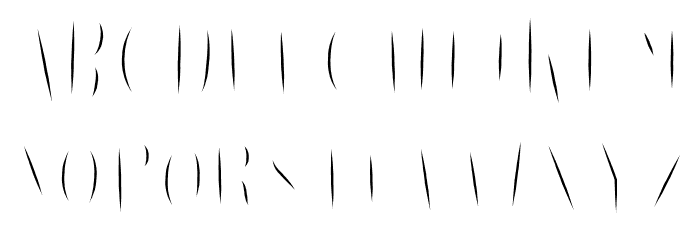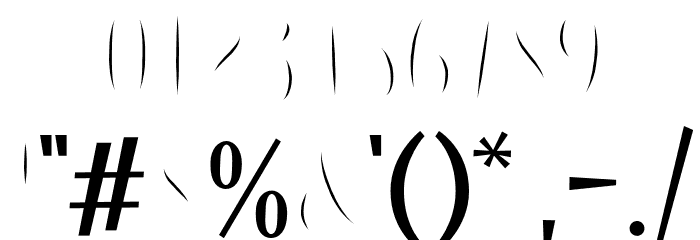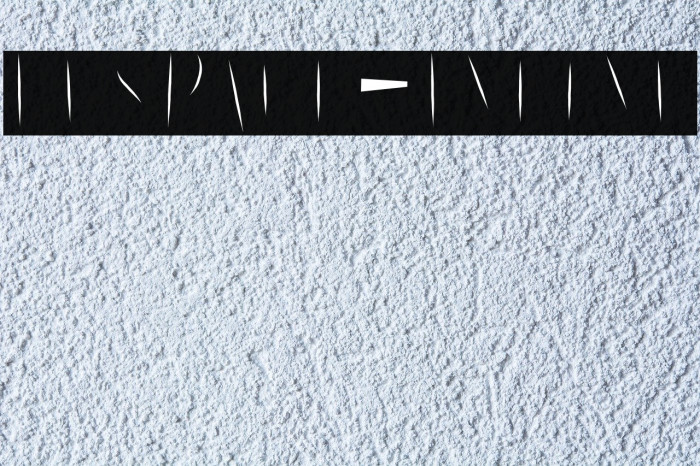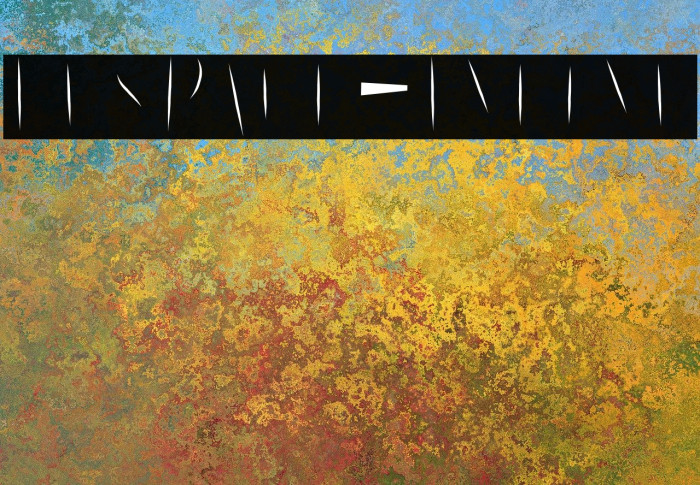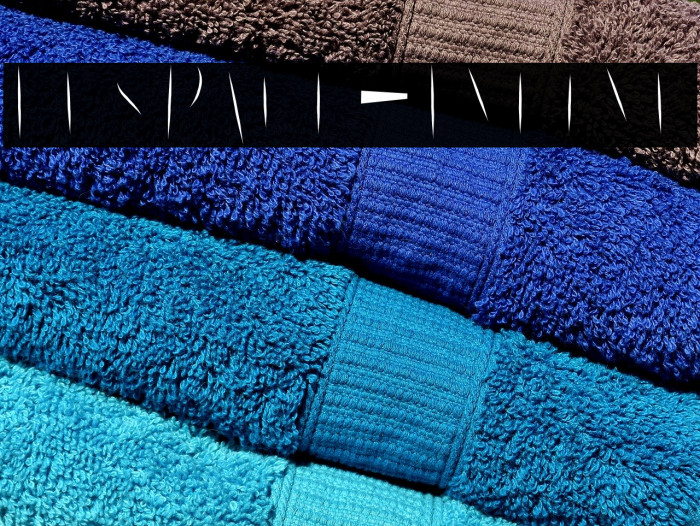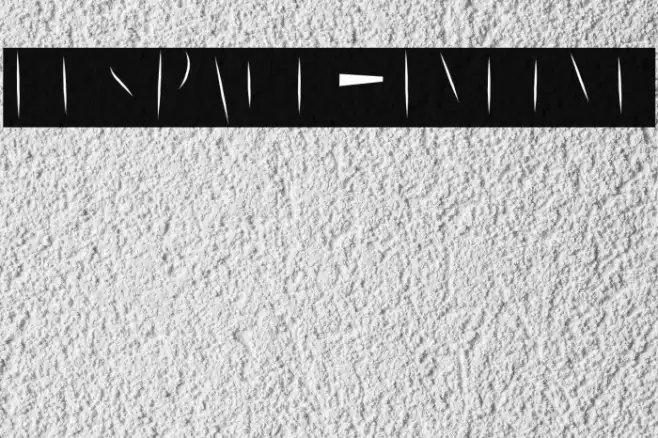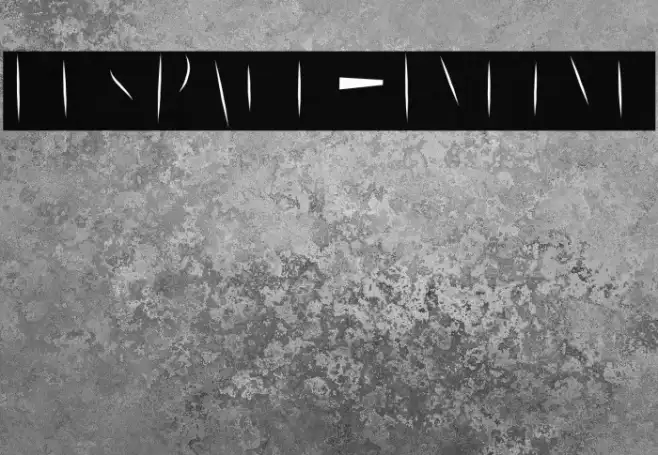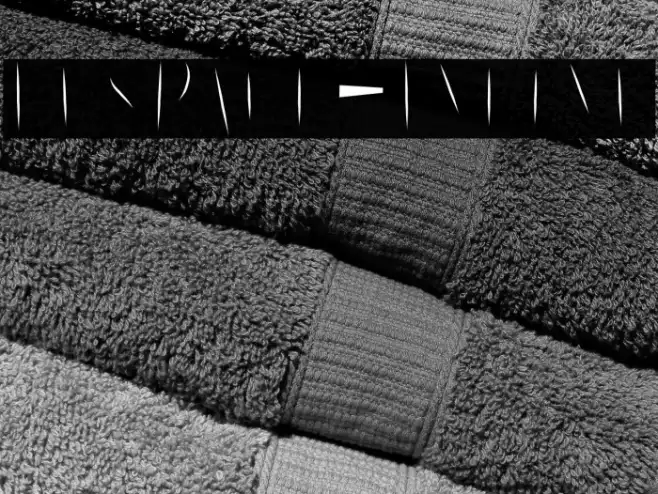
LesPaul-Inline Font
This font features a unique and striking design with elongated, sharp strokes that create a sense of movement and elegance. The letters are thin and tall, with a high contrast between thick and thin lines, giving it a dynamic and sophisticated appearance. The uppercase and lowercase characters maintain a consistent style, with the lowercase letters mirroring the elongated form of the uppercase. The numbers and special characters follow the same design principles, ensuring a cohesive look across all elements. This font's distinct style makes it stand out, ideal for projects that require a touch of modern elegance and flair.
A modern, elegant font with elongated, sharp strokes and high contrast.
- Proposed Projects: Ideal for luxury branding, fashion magazines, high-end product packaging, and artistic posters.
- Character Spacing: Tight
- Use Case: Logos, Headlines, Artistic Posters